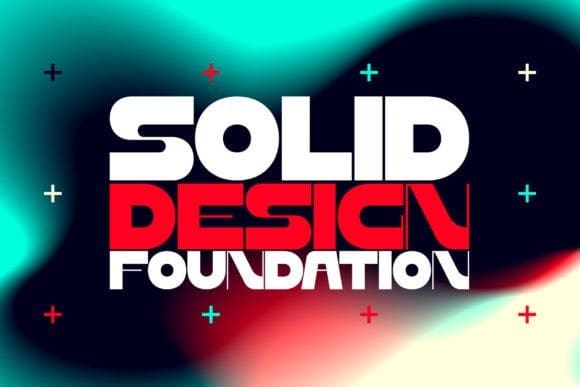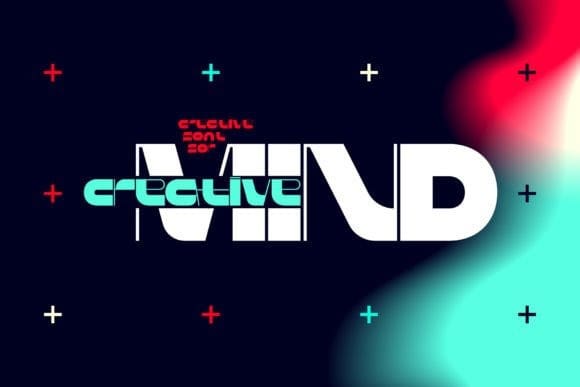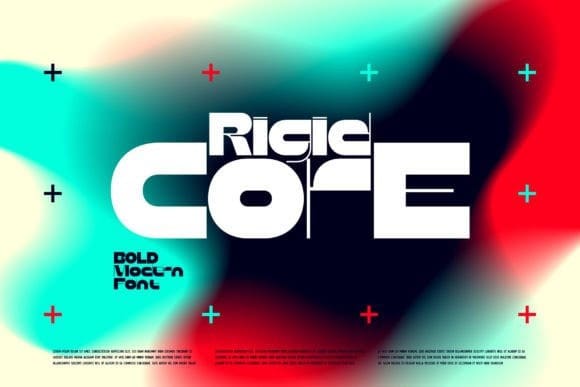
Rigid Core Font
Rigid Core Font is a strikingly bold display font designed to command attention. Its strong, geometric shapes and defined lines evoke a sense of power and solidity. Ideal for headlines, posters, and branding projects, RigidCore exudes confidence and modernity, making every message stand out with authority and style.